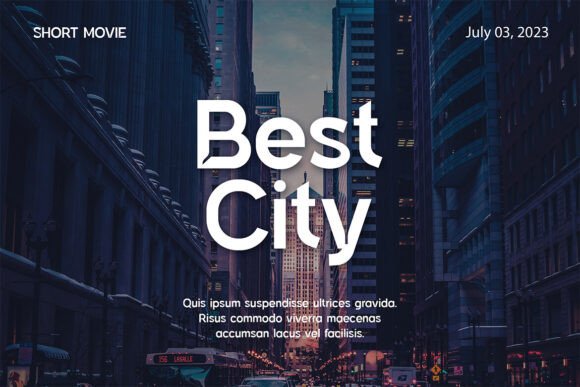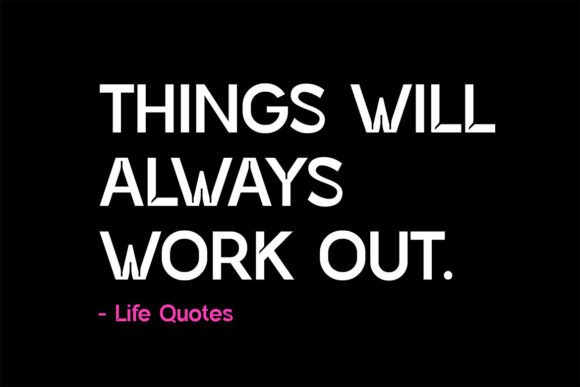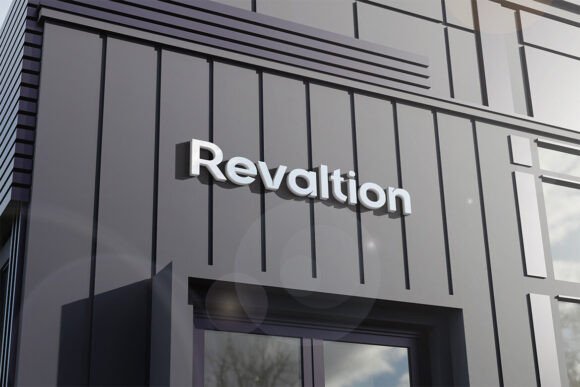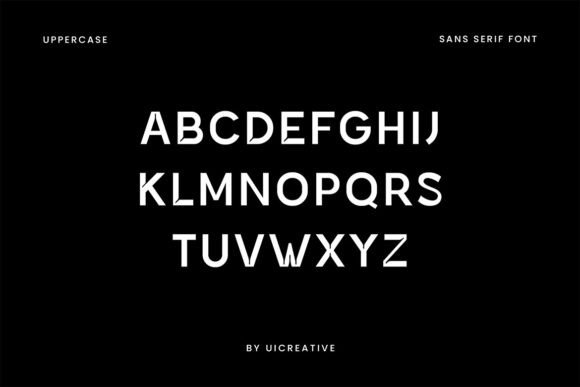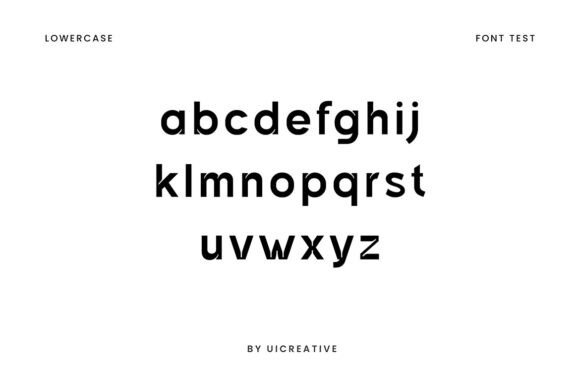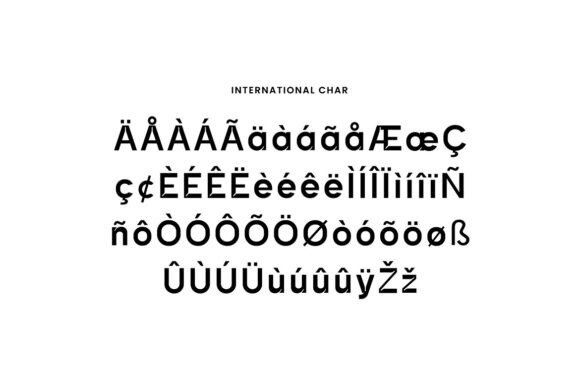
Introducing Amidone Grotesk: The Epitome of Modern Sans Serif Elegance
In the realm of typography, the right font can elevate a design from mundane to extraordinary. Amidone Grotesk, a modern sans serif font, has emerged as a beacon of elegance and sophistication. Its sleek lines, beautiful curves, and classy demeanor make it an ideal choice for designers and crafters looking to infuse their projects with a touch of refinement.
The Essence of Amidone Grotesk
Amidone Grotesk is not just a font; it’s an experience. It embodies a sense of style and luxury, making it perfect for projects that demand a high level of sophistication. This modern display font feels beautiful, classy, elegant, and stylish, allowing designers to create visually stunning pieces that capture the essence of their brand or message.
One of the standout features of Amidone Grotesk is its versatility. This font is ideally suited for a wide variety of projects, including:
- Signature and stationery designs
- Logo creation
- Wedding and event typography
- Typography quotes and posters
- Magazine or book covers
- Website headers and branding
- Fashion-related branding or editorial design
Whether you’re working on a corporate brand identity or a creative editorial project, Amidone Grotesk offers the flexibility to adapt and shine.
Masculine and Feminine Qualities
Amidone Grotesk is unique in its ability to display both masculine and feminine qualities, making it a rare find in the world of typography. This duality allows designers to use the font across a broad spectrum of projects, from fashion and beauty to technology and finance. The font’s clean lines and geometric shapes give it a masculine edge, while its elegant curves and sophisticated feel add a touch of femininity.
Why Choose Amidone Grotesk?
With so many fonts available, why choose Amidone Grotesk? Here are a few compelling reasons:
- Elegance: Amidone Grotesk brings a level of sophistication and elegance to any project.
- Versatility: Its adaptability makes it suitable for a wide range of applications.
- Uniqueness: The font’s blend of masculine and feminine qualities sets it apart from more traditional fonts.
- Readability: Despite its elegant and stylish appearance, Amidone Grotesk remains highly readable, even at smaller sizes.
Tips for Using Amidone Grotesk
To make the most of Amidone Grotesk, consider the following tips:
- Pair it with simplicity: Let the font be the star of your design. Pair it with simple backgrounds or textures that don’t compete for attention.
- Experiment with sizes: Play with different sizes to create visual hierarchy and emphasize key messages.
- Use it sparingly: While Amidone Grotesk is elegant, using it sparingly can make it more impactful. Use it for headings or key phrases to draw attention.
Amidone Grotesk is more than just a font; it’s a design statement. Its modern sans serif elegance, versatility, and unique blend of masculine and feminine qualities make it an invaluable tool for designers and crafters. Whether you’re creating a brand identity, editorial content, or marketing materials, Amidone Grotesk can help you convey your message with style and sophistication. Discover the power of Amidone Grotesk and elevate your designs to new heights of elegance and class.